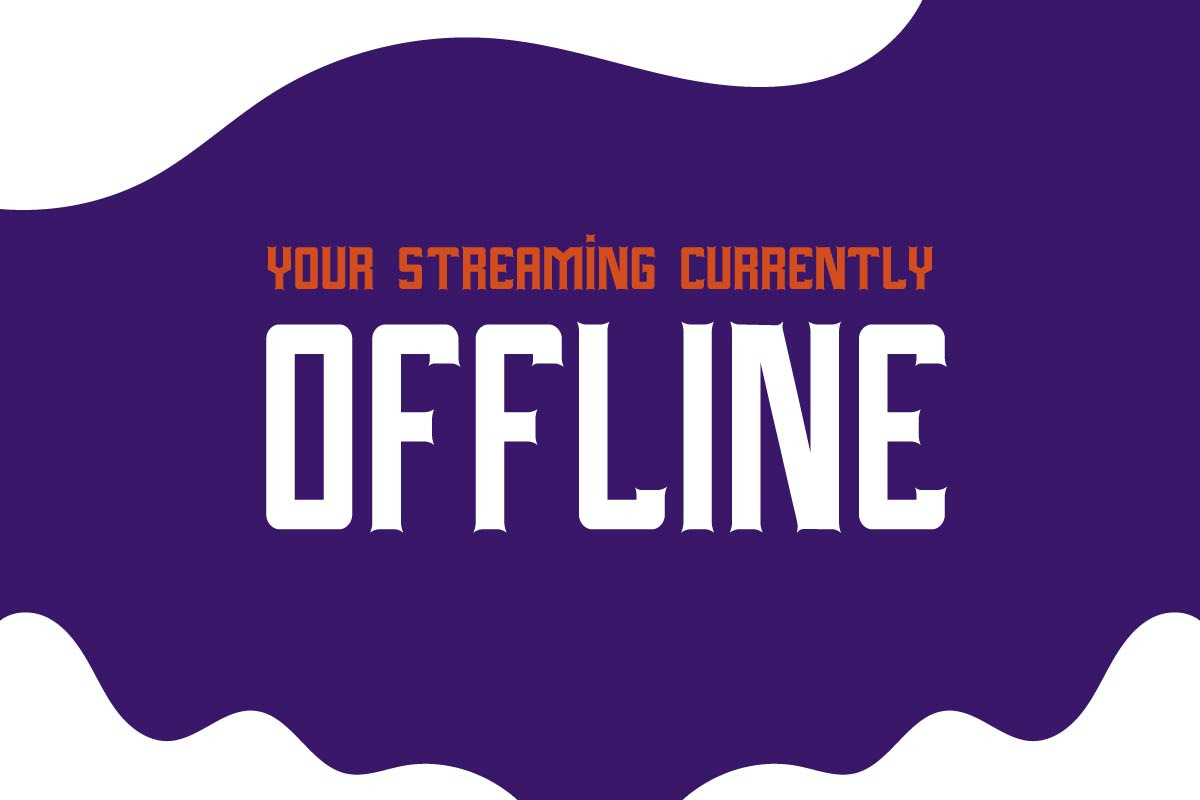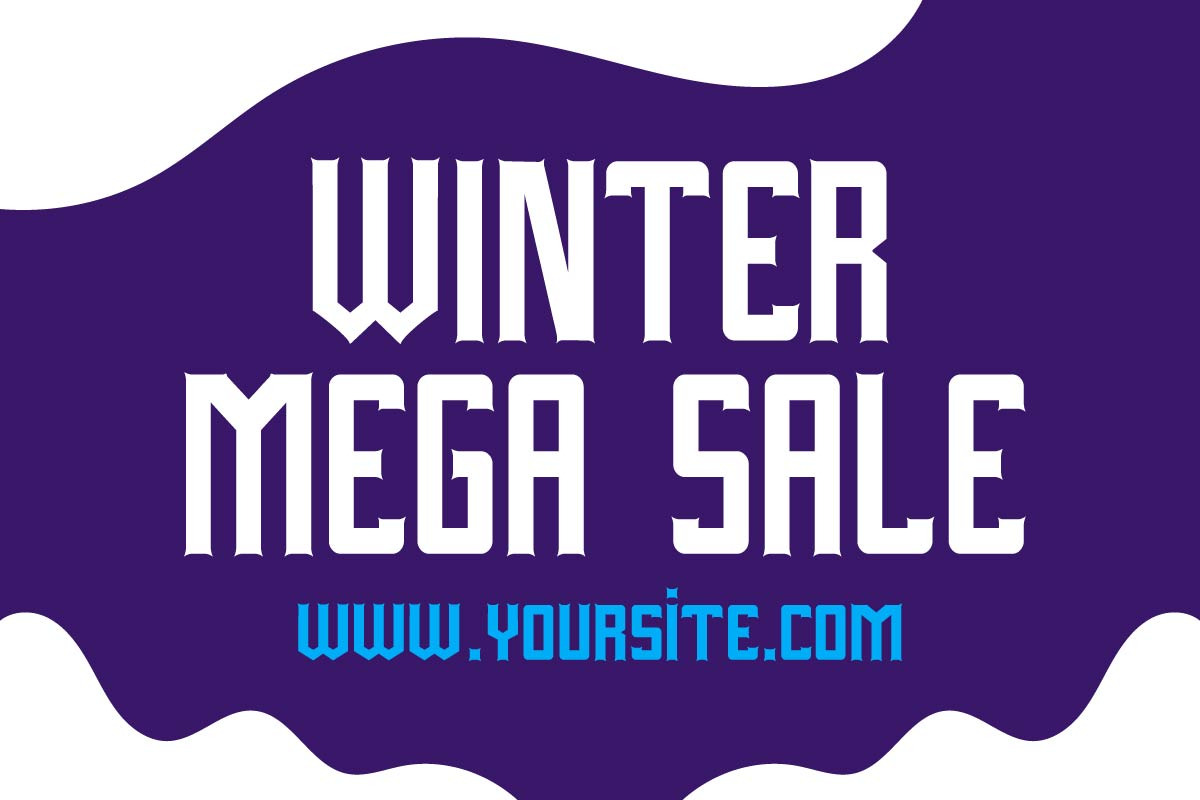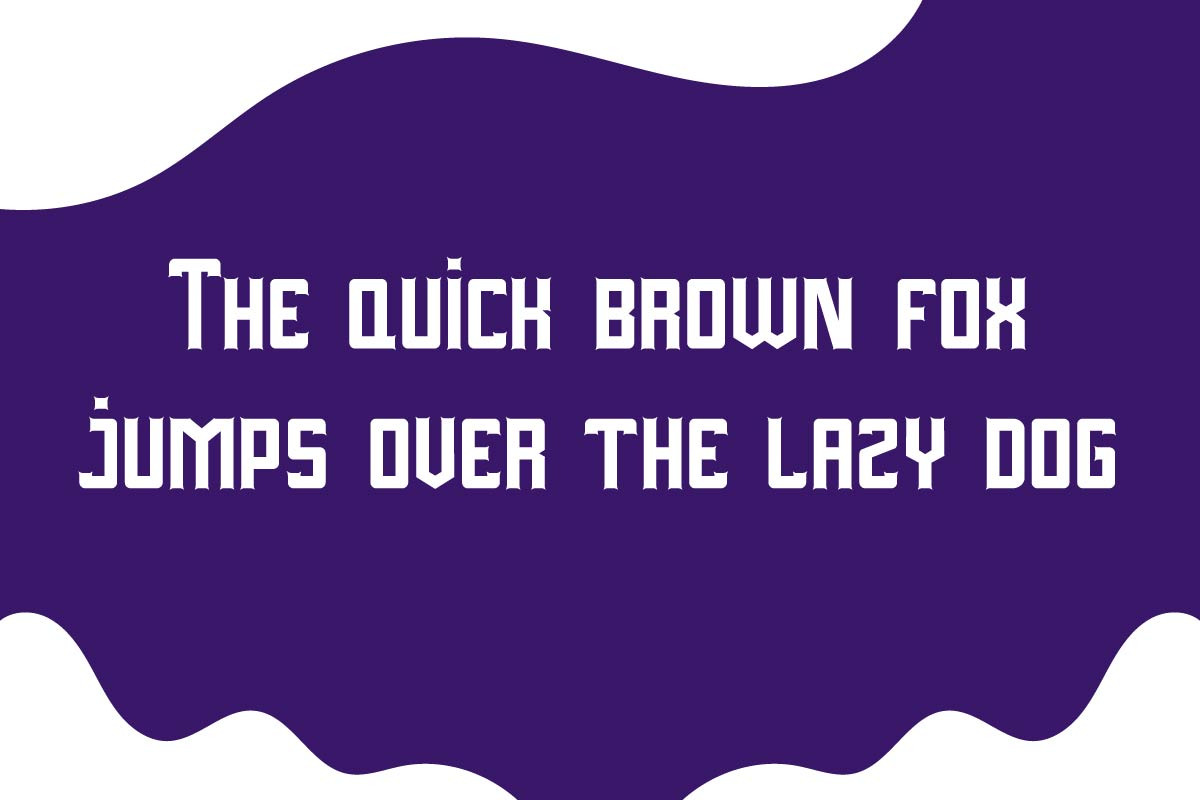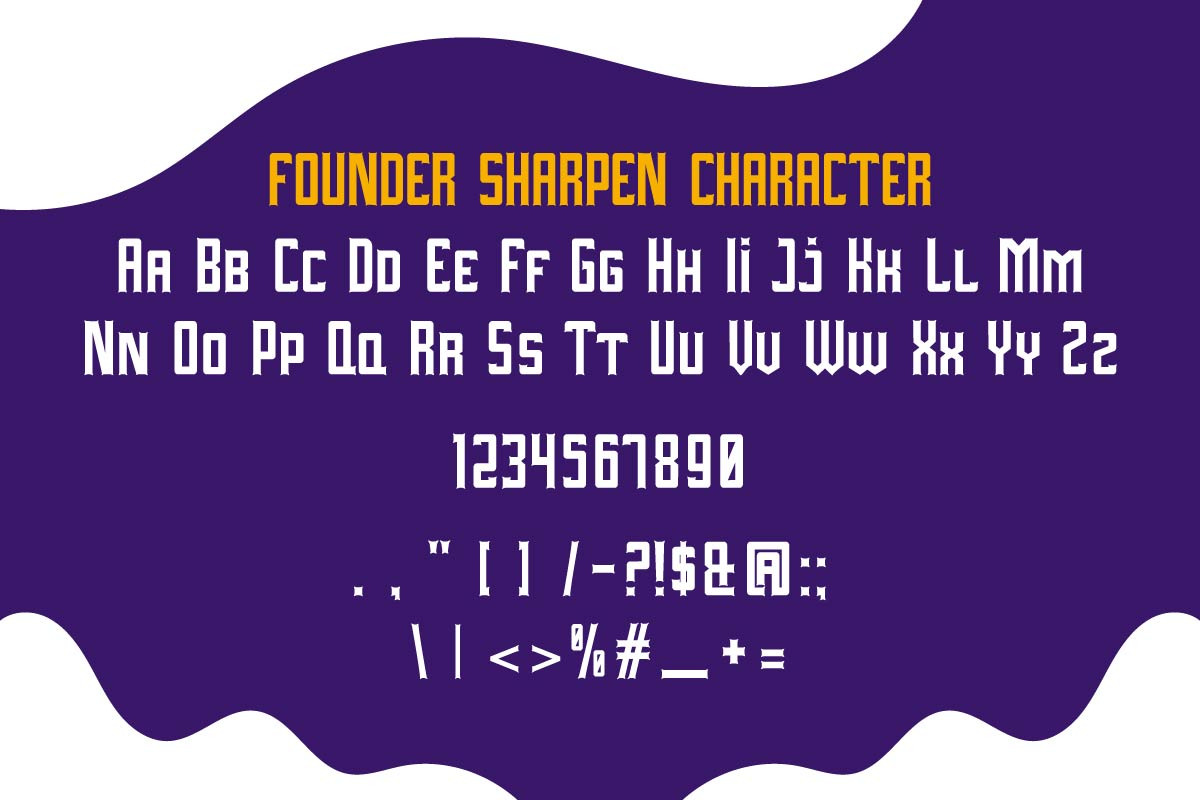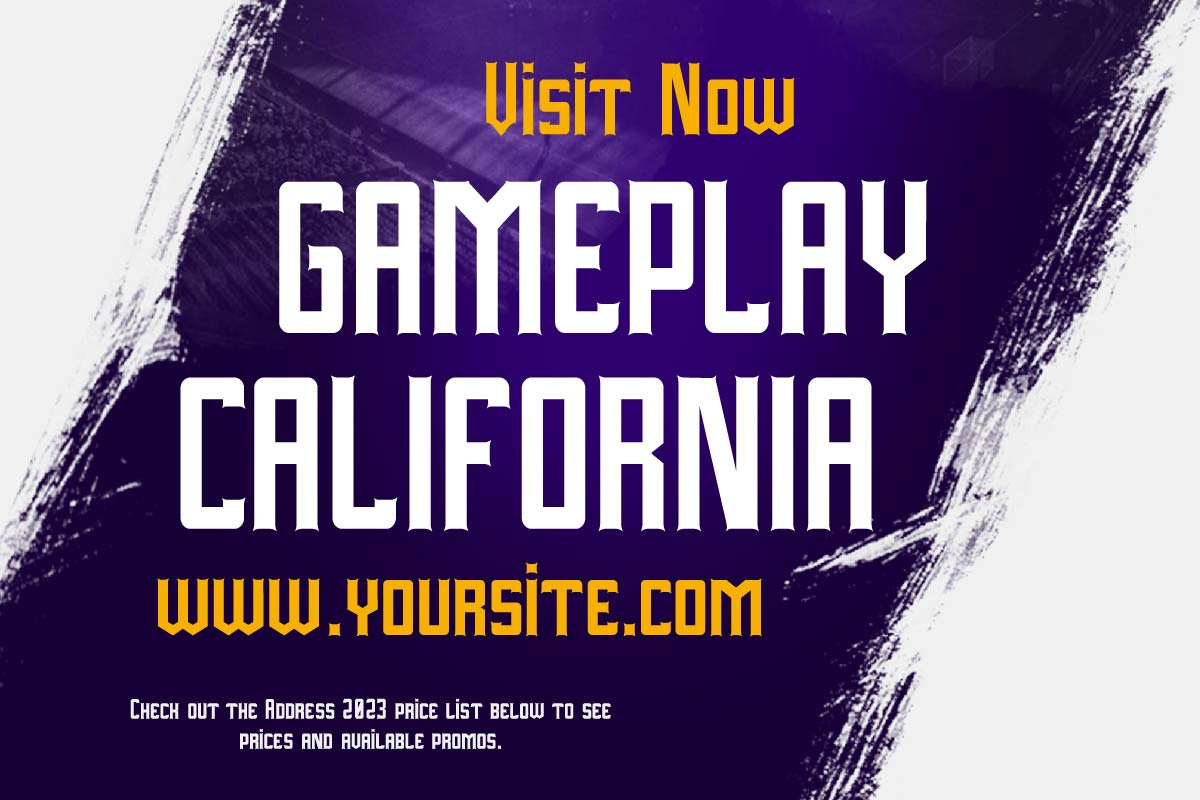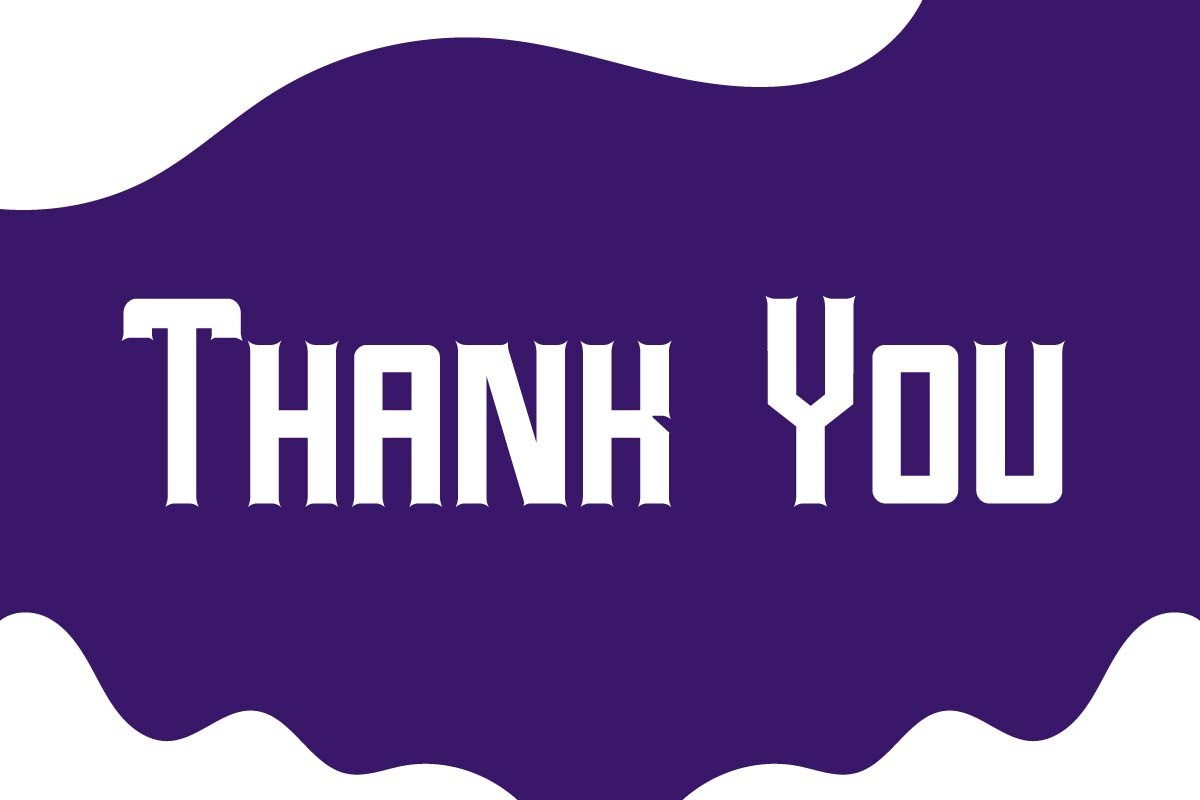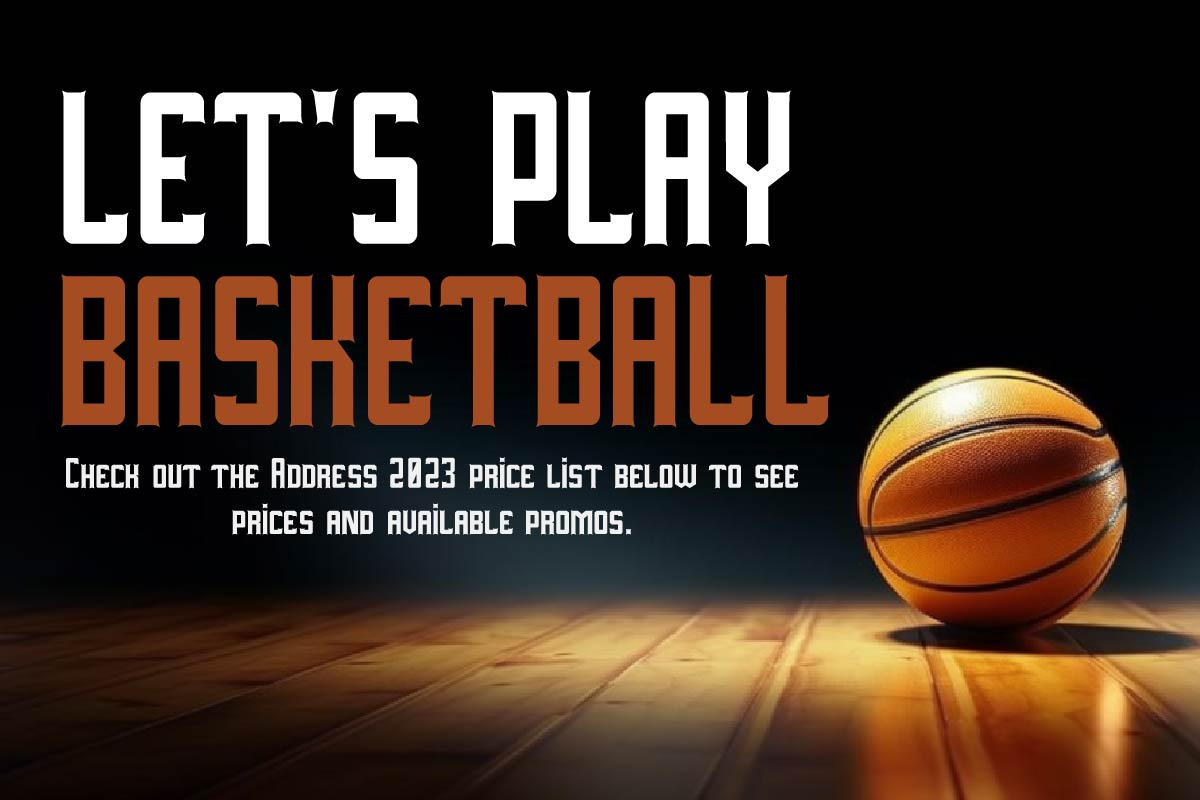
Founder Sharpen Modern Sport Display
Founder Sharpen Modern Sport Display font is our new item suitable for your Posters.
Great for Logo, Poster, Sticker, Jerseys, Invitation Card, Brochure, etc.